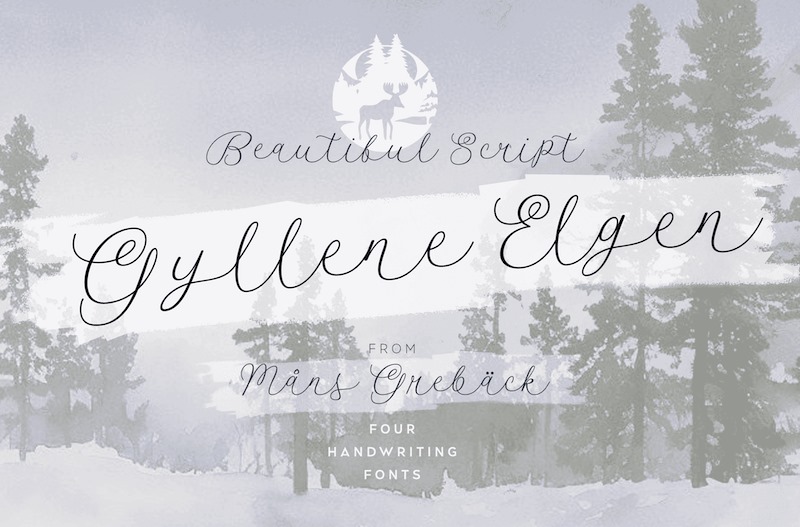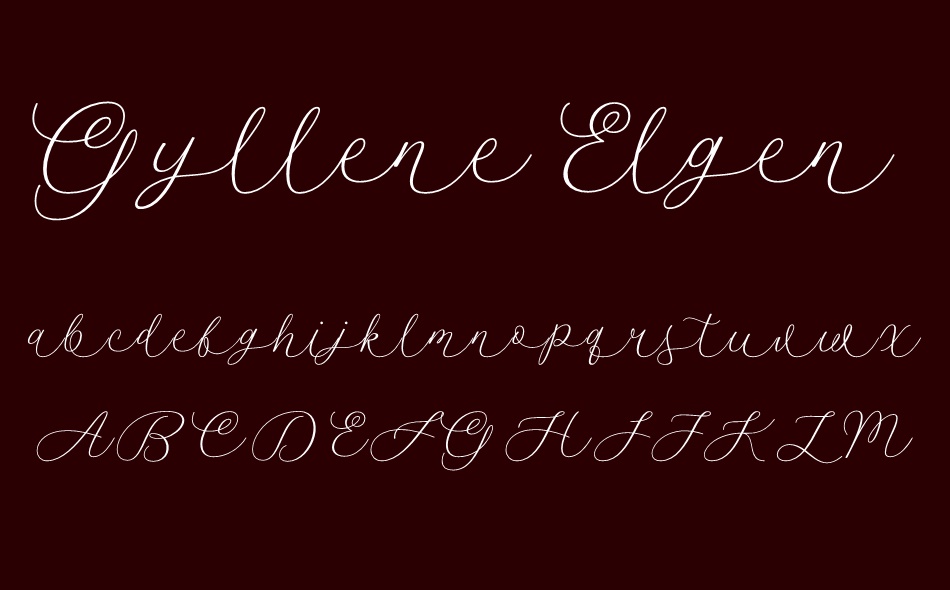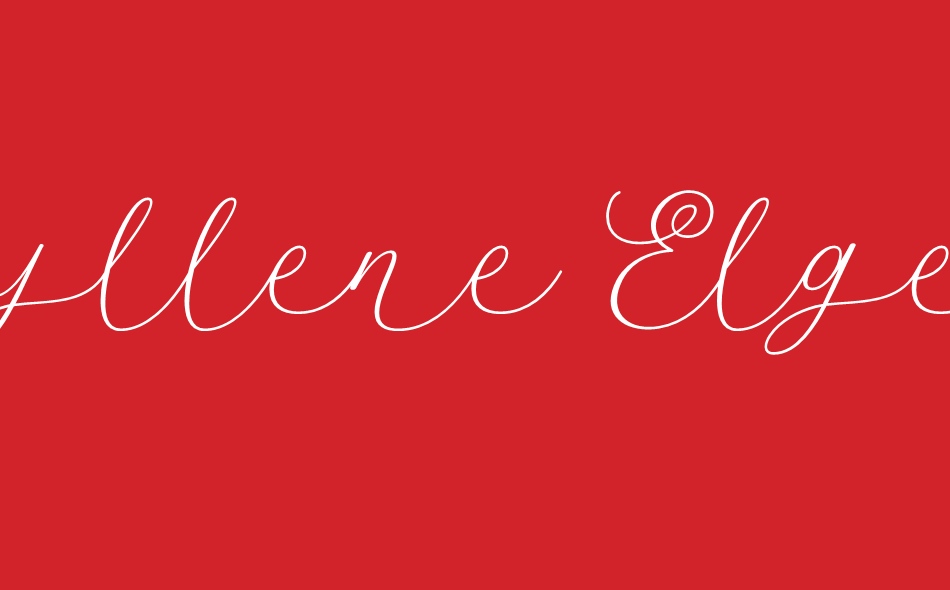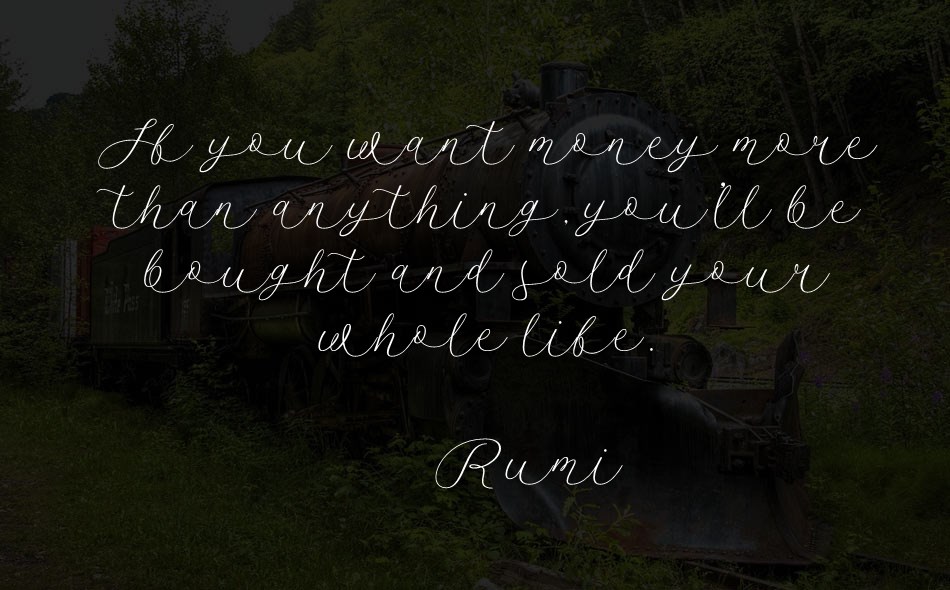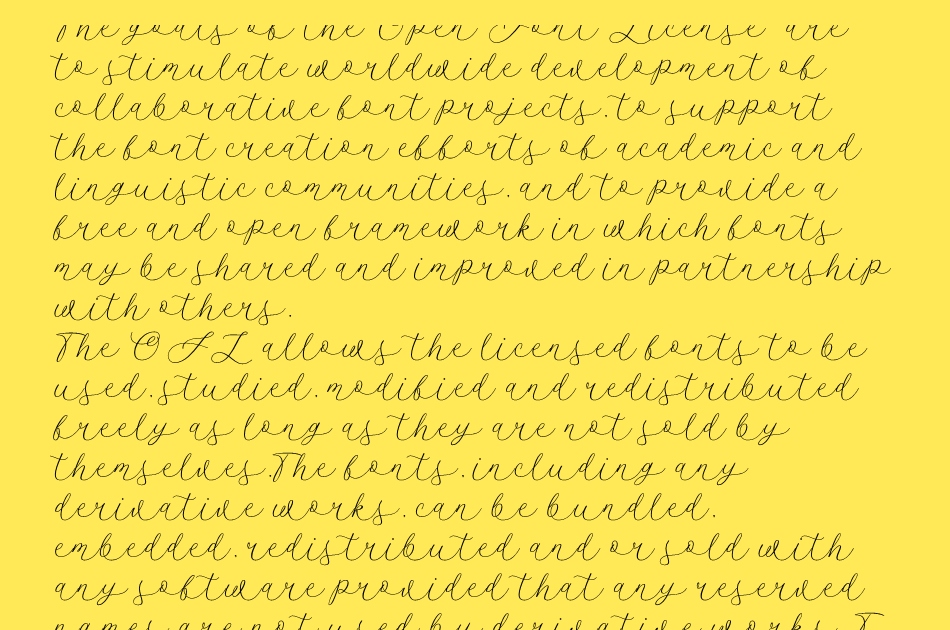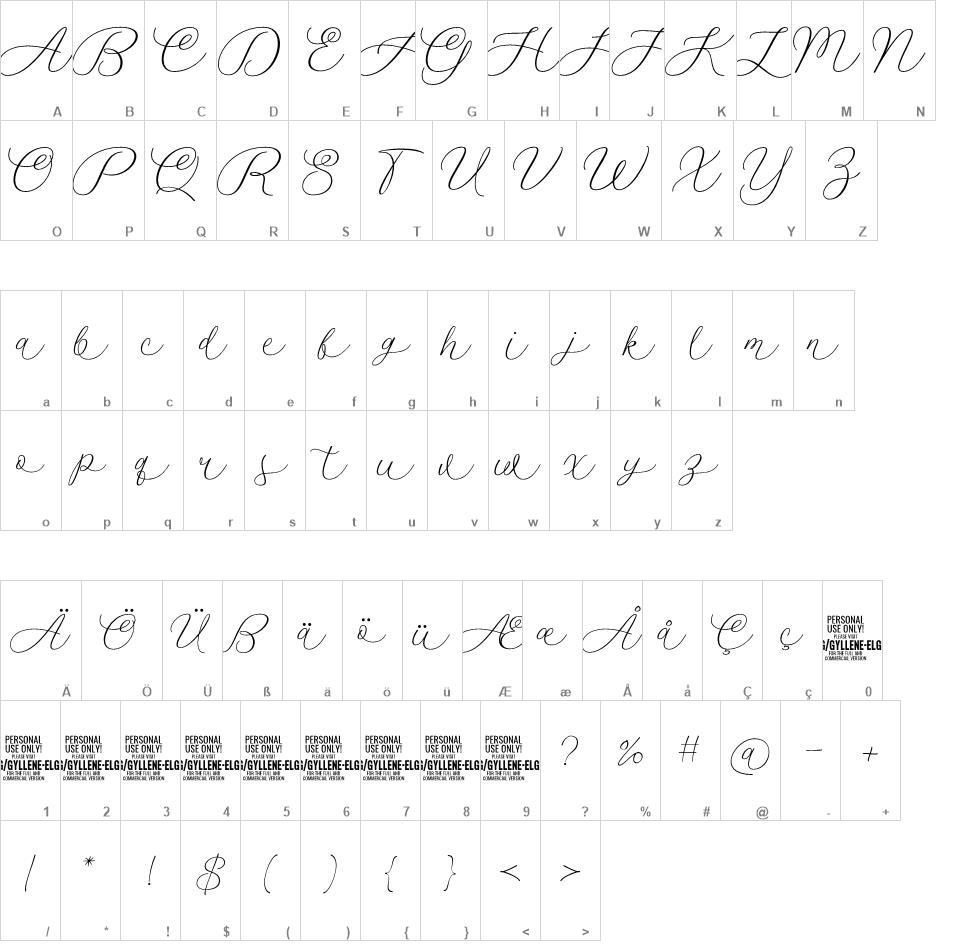
Gyllene Elgen font
Gyllene Elgen, created by Mans Greback, is a delicate and captivating handwriting font that exudes romance and charm. With its thin, beautiful lines, and loopy, decorative swirls, this typeface brings a touch of elegance and sophistication to your design projects.
Gyllene Elgen, created by Mans Greback, is a delicate and captivating handwriting font that exudes romance and charm. With its thin, beautiful lines, and loopy, decorative swirls, this typeface brings a touch of elegance and sophistication to your design projects. Perfect for invitations, personal notes, and other heartfelt communications, Gyllene Elgen captures the essence of delicate, handcrafted beauty.
The font was inspired by the golden hues of the Swedish landscape during autumn, as well as the mythical golden elk that roams the forests. Mans Greback sought to bring this enchanting story to life through the graceful curves and fine details of Gyllene Elgen.
Mans Greback is a Swedish typeface designer, celebrated for his innovative and diverse portfolio. With a keen eye for detail and innovative designs, Mans has earned a reputation for creating fonts that resonate with people across the globe, inspiring creativity and capturing the imagination.